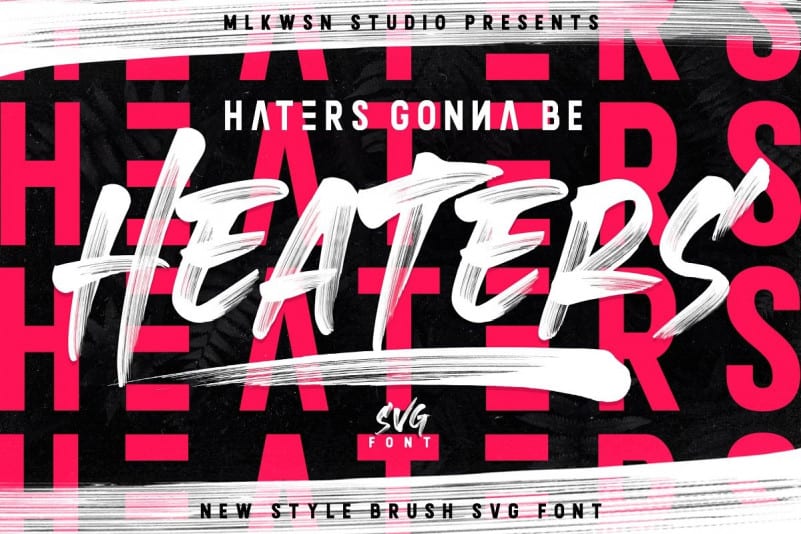
Heaters Brush Font
Proudly Present, Heaters Brush Font. It’s a Natural Handbrushed Font. This is a street-wise brush font bursting, With extra attention to quick strokes and sharp details. It’s a supercharged brush font style, street-wise brush font bursting with energy.
Heaters Brush Font preserves all the high definition detail of the original handwritten letters. Using OpenType-SVG technology it truly looks realistic. The OpenType-SVG format requires Photoshop CC 2017 or Illustrator CC 2018 (or newer). Regular OTF format is also included.
Take your design to the up level with a hyper-realistic font that truly looks hand painted. Heaters uses brand new technology that makes way for more authentic looking fonts and is sure to grab the attention of customers and designers alike.